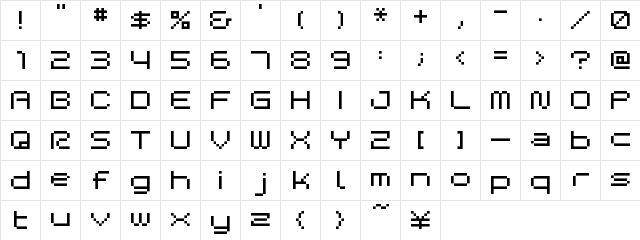
BM space A9
Design Context for BM space Typeface
BM space takes a measured approach to typography — its balanced proportions and neutral character make it a reliable workhorse for both digital and print work.